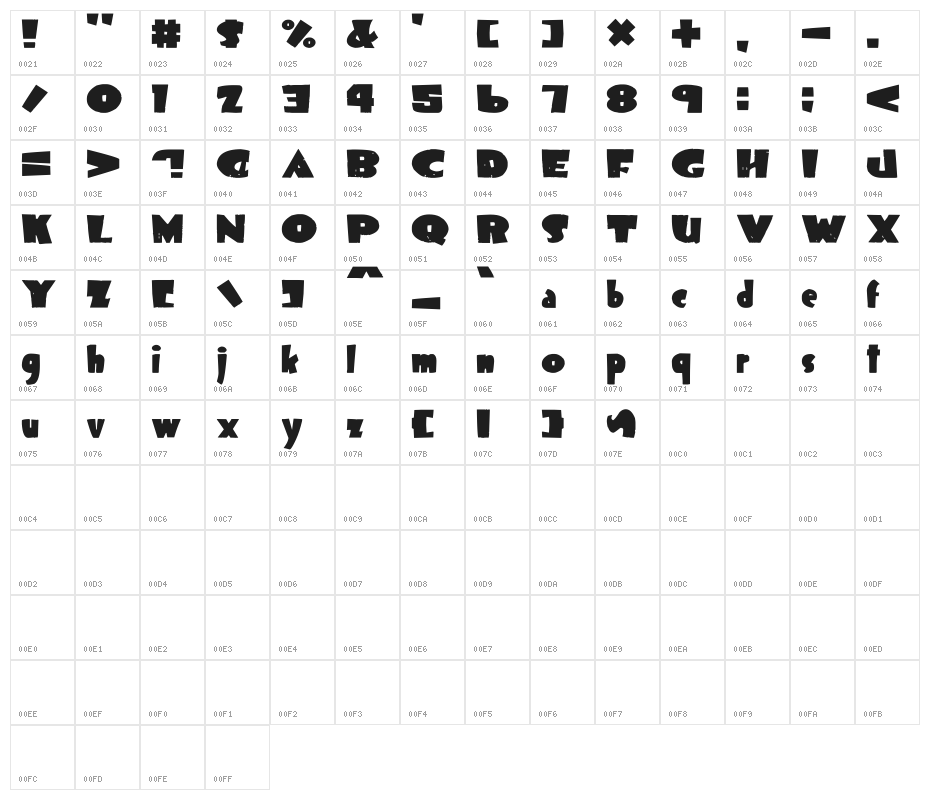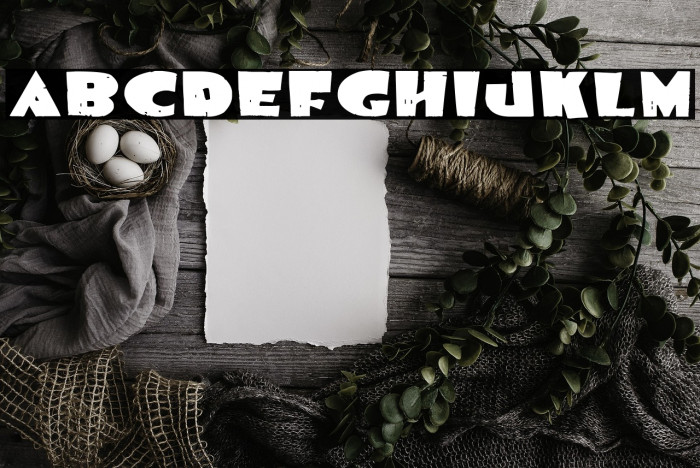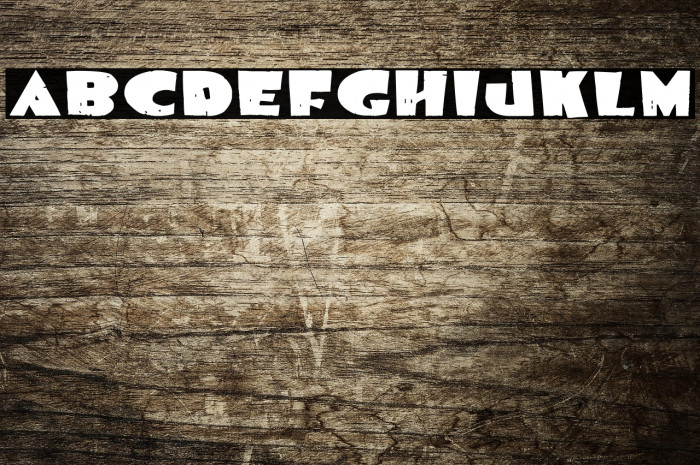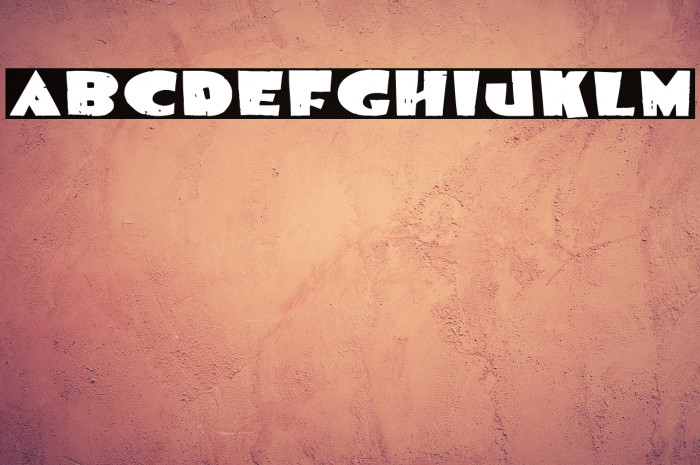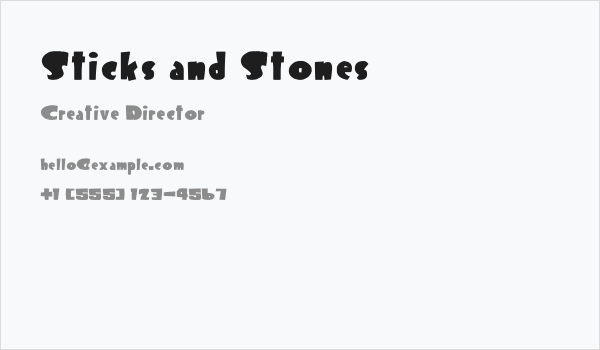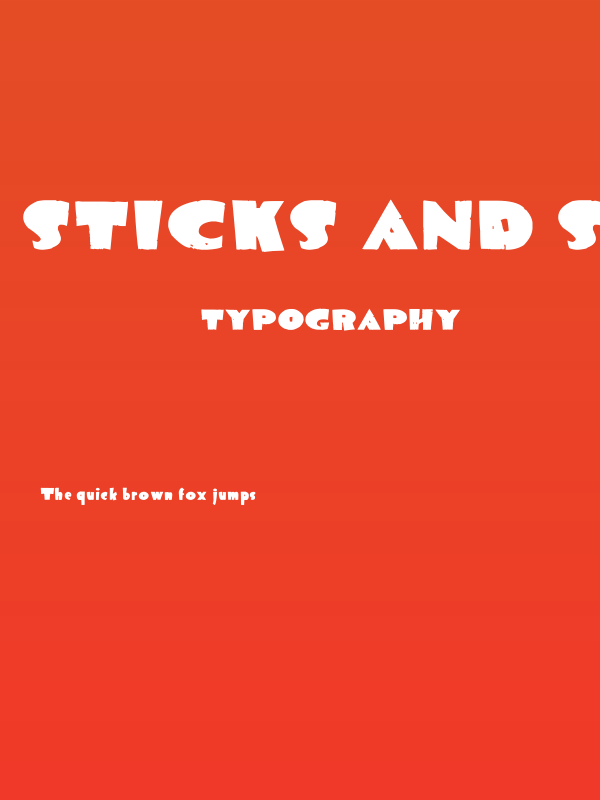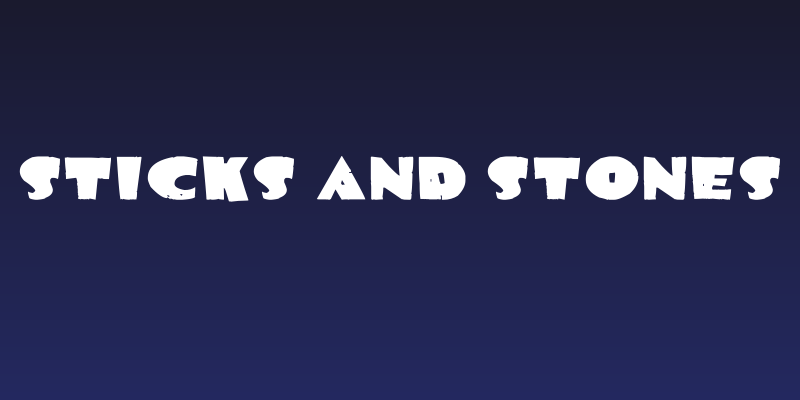
Sticks and Stones Font
Sticks and Stones Description
This font features a bold and playful design with irregular, chunky letterforms that give it a hand-crafted appearance. The characters have a rough, uneven texture, reminiscent of letters carved from stone or wood. The uppercase and lowercase letters maintain a consistent style, with exaggerated curves and angles that add to its whimsical and informal feel. The numbers and special characters follow the same design principles, ensuring a cohesive look across all glyphs. This font is ideal for projects that require a fun and eye-catching display typeface.
| Overall Style | Playful, Hand-crafted |
| Use Case | Headlines, Posters, Creative projects |
| Proposed Projects | Perfect for children's books, playful branding, posters, and creative projects that require a whimsical touch. |